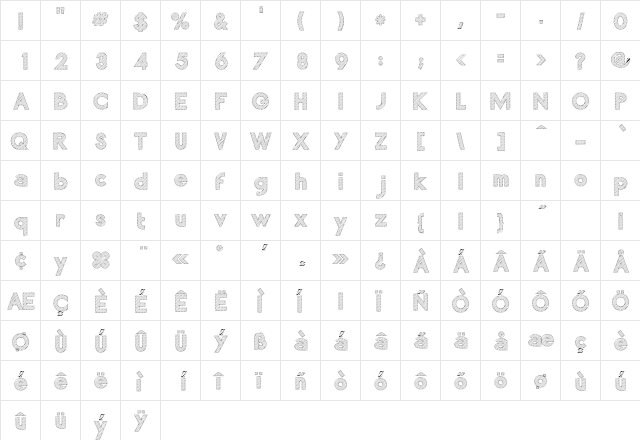
Malabars 2 Regular
Design Context for Malabars 2 Typeface
Malabars 2 takes a measured approach to typography — its balanced proportions and neutral character make it a reliable workhorse for both digital and print work.